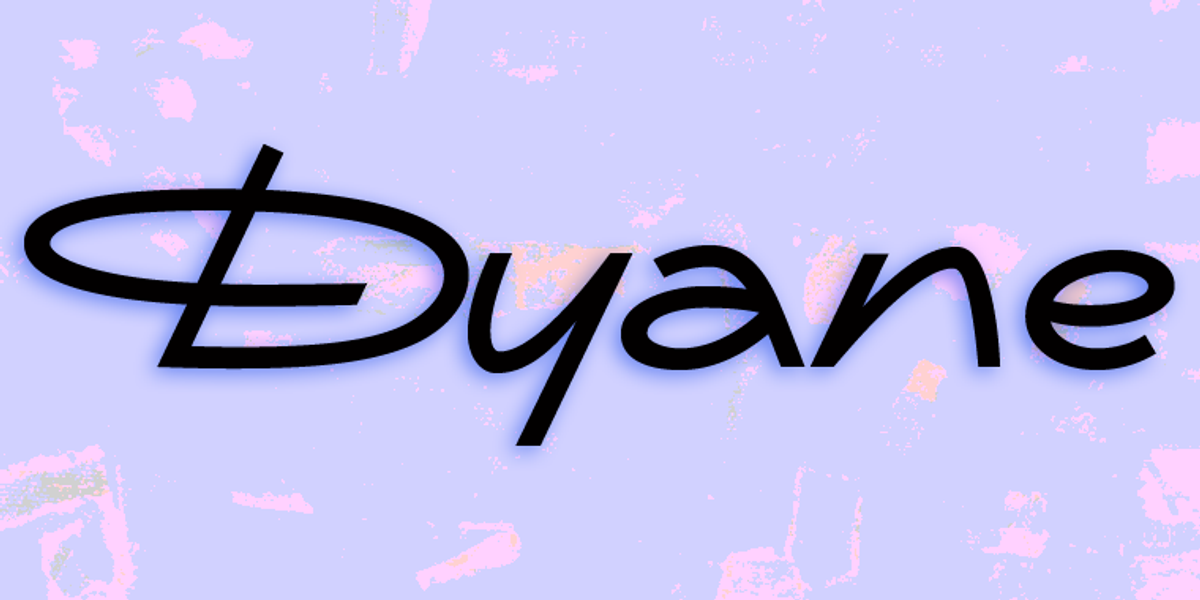
Dyane
Dyane is a script typeface inspired by monolinear scripts from the Bauhaus era. Its defining feature is the unique counterstrokes found in the lowercase letters 'a', 'h', 'm', and 'n'. These counterstrokes create a distinctive rhythm within the lettering, lending Dyane a casual yet elegant feel. It's well-suited for wedding invitations and titling.